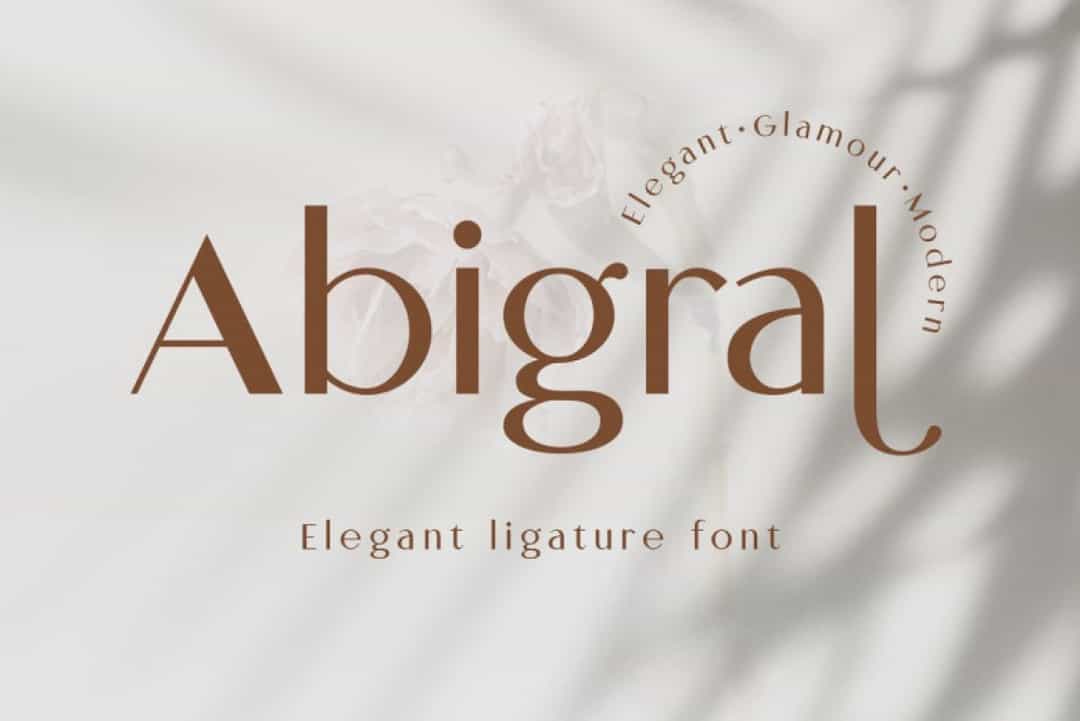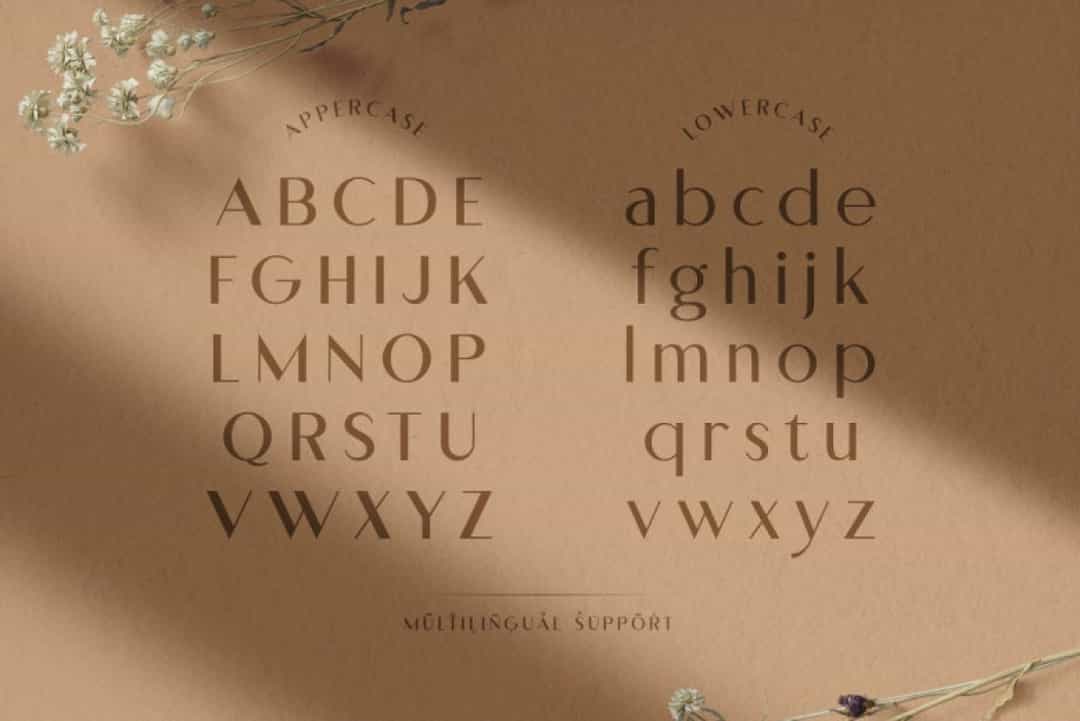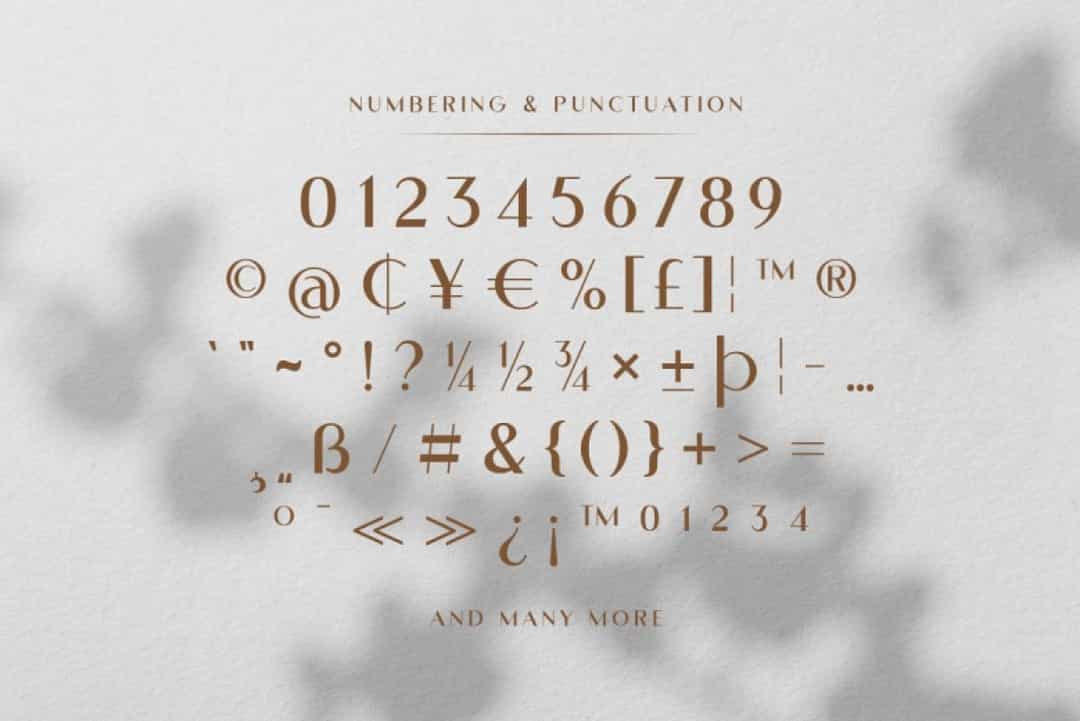
Discover Abigral Font, part of the Sans Serif collection—a versatile and unique font perfect for adding a personal touch to your projects. Download it for free and enjoy crafting designs with style, from invitations to social media posts. This font is available exclusively for personal use, giving you the freedom to create without limits. Unlock your creativity with Abigral Font today!
Abigral is a classic sans serif font featuring geometric forms and elegant double-stroke lettershapes, created to meet standard spacing requirements for display, logotype or body-text purposes. Abigral also boasts attractive alternate characters as well as elegant ligatures to help create more conceptual designs.